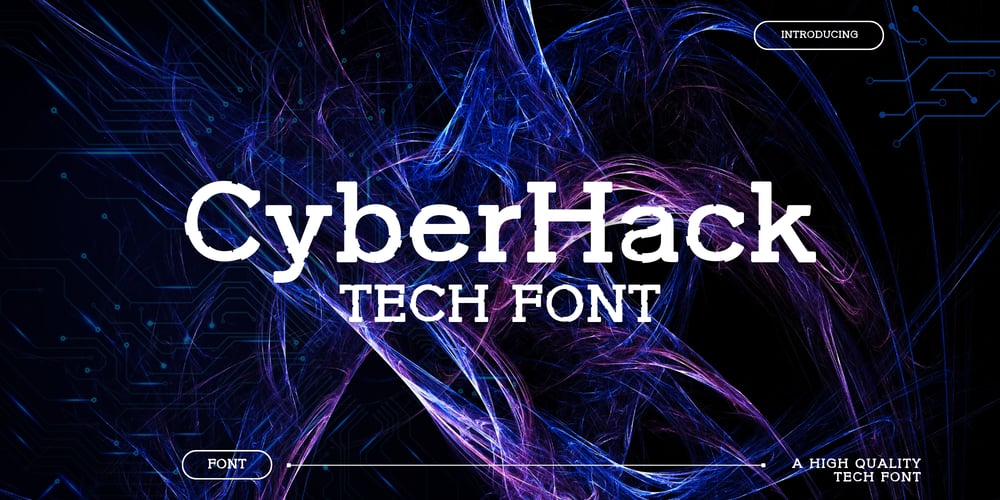
Cyber Hack Font Family was designed by Faraz Ahmad and published by Creativetacos. Cyber Hack contains 2 styles and family package options. CyberHack Tech Font is a cutting-edge, modern font designed to reflect the future of technology. With its bold, industrial look, CyberHack brings a sense of energy and futuristic innovation to your designs. The font’s sharp, clean lines and digital-inspired shapes make it perfect for tech brands, sci-fi posters, video game graphics, and anything that needs a tech-savvy vibe. Whether you’re creating for the digital world or crafting an innovative brand identity, CyberHack Tech Font has the versatility and style to make your designs stand out.This font is especially great for digital media, video games, and tech-driven projects, where a high-tech aesthetic is key. Its distinct, blocky shapes make it perfect for titles, headlines, and logos, while maintaining readability for body text in web designs or brochures. From tech conferences to futuristic event promotions, CyberHack Tech Font delivers a strong, techy presence that captures the essence of modern digital innovation.